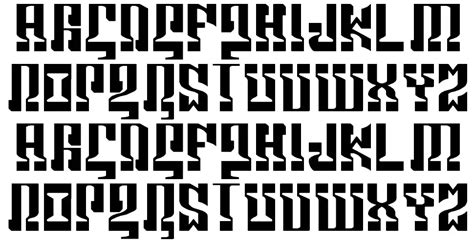
Marshosbn Font: A Comprehensive Guide
Hey guys! Ever stumbled upon a font that just screams personality? Well, today we’re diving deep into the world of Marshosbn font , exploring everything from its origins and unique characteristics to how you can get your hands on it and make it work for your projects. This isn’t just a font; it’s a statement, a vibe, a whole aesthetic in itself! So, buckle up, and let’s unravel the secrets of this fantastic typeface.
Unveiling the Marshosbn Font
So, what exactly is the Marshosbn font ? It’s a display font known for its distinctive style, often categorized as a blend of modern and vintage elements. Its design is characterized by its bold strokes, unique letterforms, and often, a touch of artistic flair. This font is a fantastic choice for anyone looking to add a touch of personality and visual impact to their designs. The Marshosbn font, with its distinctive characteristics, instantly grabs the viewer’s attention. Its unique style allows it to stand out from the crowd and delivers a memorable visual experience. Its versatility enables it to be used across a broad spectrum of creative projects. Whether you are working on designing a logo, crafting a website banner, or preparing promotional materials, Marshosbn font provides a fresh and exciting look. When you use the Marshosbn font, you are not merely selecting a typeface; you’re adopting a complete design solution that encapsulates creativity and innovation. This font’s visual impact makes it ideal for headlines, titles, and any design element where you need to make a statement. Furthermore, the Marshosbn font offers a fresh perspective that challenges traditional typographic norms. It promotes experimentation and encourages designers to create unique and eye-catching compositions. As we delve further, we will investigate the specific attributes that make the Marshosbn font stand out. We will also explore the ideal applications for this font, and guide you on where and how to obtain it for your design needs. The Marshosbn font is more than just a tool; it’s a creative partner that empowers you to develop distinctive and captivating designs. So, let’s explore the intricate details and unlock the full potential of Marshosbn font.
The Anatomy of a Stylish Font
The Marshosbn font isn’t just about the overall look; it’s about the details. Examining the anatomy of this font, you’ll likely notice several key features that contribute to its distinctive style. This often includes carefully crafted serifs, a distinctive contrast between thick and thin strokes, and unique letter shapes that set it apart from more conventional fonts. These elements together give it that undeniable charm, that character that makes it so recognizable. Think of it like this: each letter is a tiny work of art, designed to work in harmony with the others to create a stunning visual. The design often incorporates both modern and vintage components, creating a timeless look. This combination makes it suitable for a wide range of projects, from nostalgic designs to contemporary logos. The balance between bold and delicate strokes adds visual interest and ensures readability even at smaller sizes. Furthermore, the individual letterforms of the Marshosbn font might possess specific characteristics. These can include a unique ‘g’ or ‘a,’ perhaps featuring a distinct curve or unconventional styling. These elements make the font visually memorable. The attention to detail in the design of Marshosbn font is clear from its intricate serifs and graceful curves to its precise spacing. The designer’s focus on precision provides a unique look and allows the typeface to convey a sense of elegance and sophistication. The fonts’ balance of structure and style makes it a great choice for projects looking to combine a distinctive look with readability. Understanding these intricacies provides a deeper appreciation of the design that is the Marshosbn font, and how you can creatively utilize it in your projects to express your vision. This level of detail ensures that your design choices have an impact and create a visual experience that captures the attention of your audience.
Where Can You Spot Marshosbn Font in Action?
You’ll find the Marshosbn font popping up in all sorts of places, from eye-catching logos and branding materials to website headers and social media graphics. Businesses and designers alike have recognized its power to create a lasting impression. The distinctive look of Marshosbn font helps brands stand out in a competitive market, enabling them to connect with their audience. It’s often used in projects where a touch of elegance or a vintage feel is desired. Websites use it to highlight headlines, and brands employ it to emphasize their identity. The font’s adaptability makes it suitable for a variety of projects. Whether for personal or professional use, Marshosbn font adds a distinctive visual appeal. Its appearance often indicates sophistication and uniqueness. Designers and brands appreciate its capability to set them apart. The wide range of applications of the Marshosbn font demonstrates its adaptability and popularity in the design field. The use of this font in different contexts provides a clear example of its flexibility and its capacity to meet various visual needs. The distinctive qualities of Marshosbn font, make it a top selection for designers wanting to make an impact. Its use in these different projects demonstrates its versatility and its ability to improve the visual storytelling.